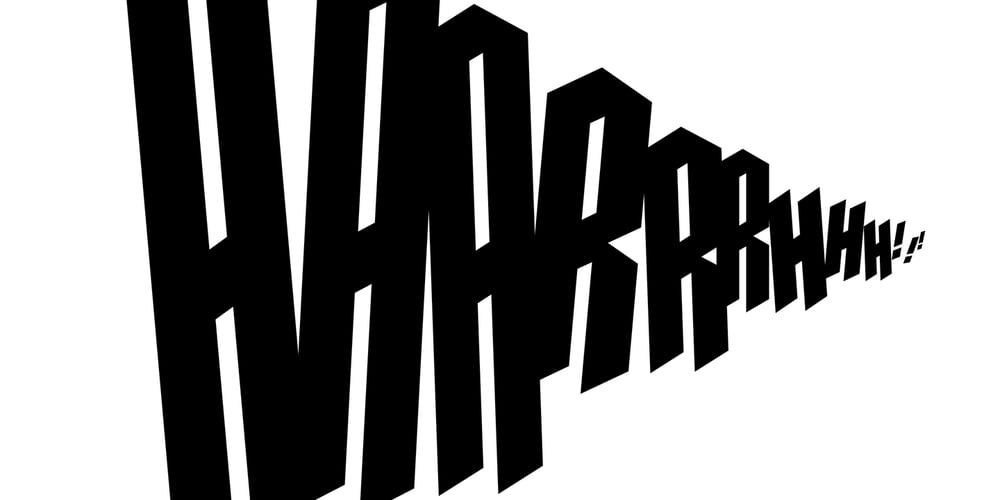
Metalista Font Family was designed by Tomáš Brousil and published by Suitcase Type Foundry. Metalista contains 3 styles and family package options. The Metalista font was created as a sign of undying admiration for the persistence of heavy metal culture. The angled font of almost fixed width proportions combines capitals with small letters for more variety and better definition of individual letters. Stressing the horizontal strokes subdued the historical Gothic character and emphasized a more modern signature, which is far different from the majority of current attempts at a modern adaptation of Fraktur fonts. We offer Metalista in three styles, or rather widths to be exact: Speed is inspired by the whiplash pace of 70s and 80s speed metal, and can tell and perform a lot even in a very small space; uncompromising Death balances on the fine line between expression and readability; and Metalista Black is the universal go-to, whether as megalomaniacal titles sprawled across the entire LP cover or as tiny texts for glam rock CD booklets.